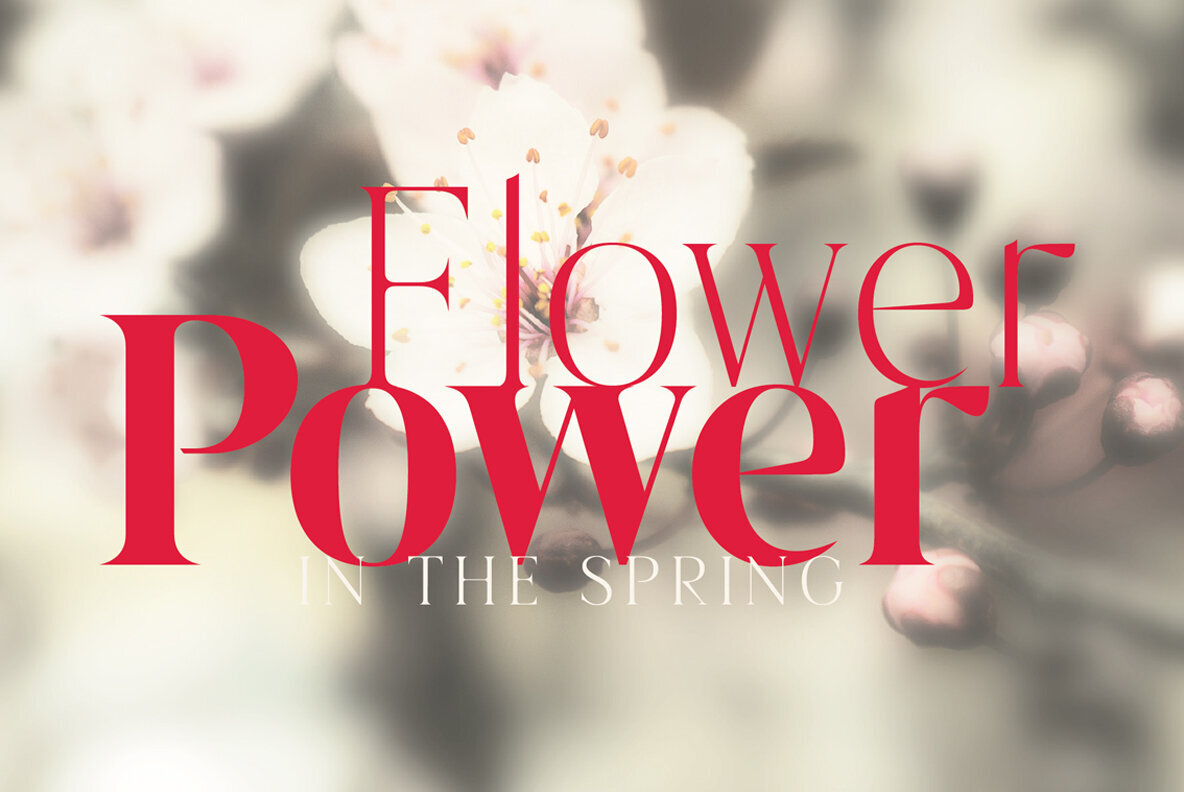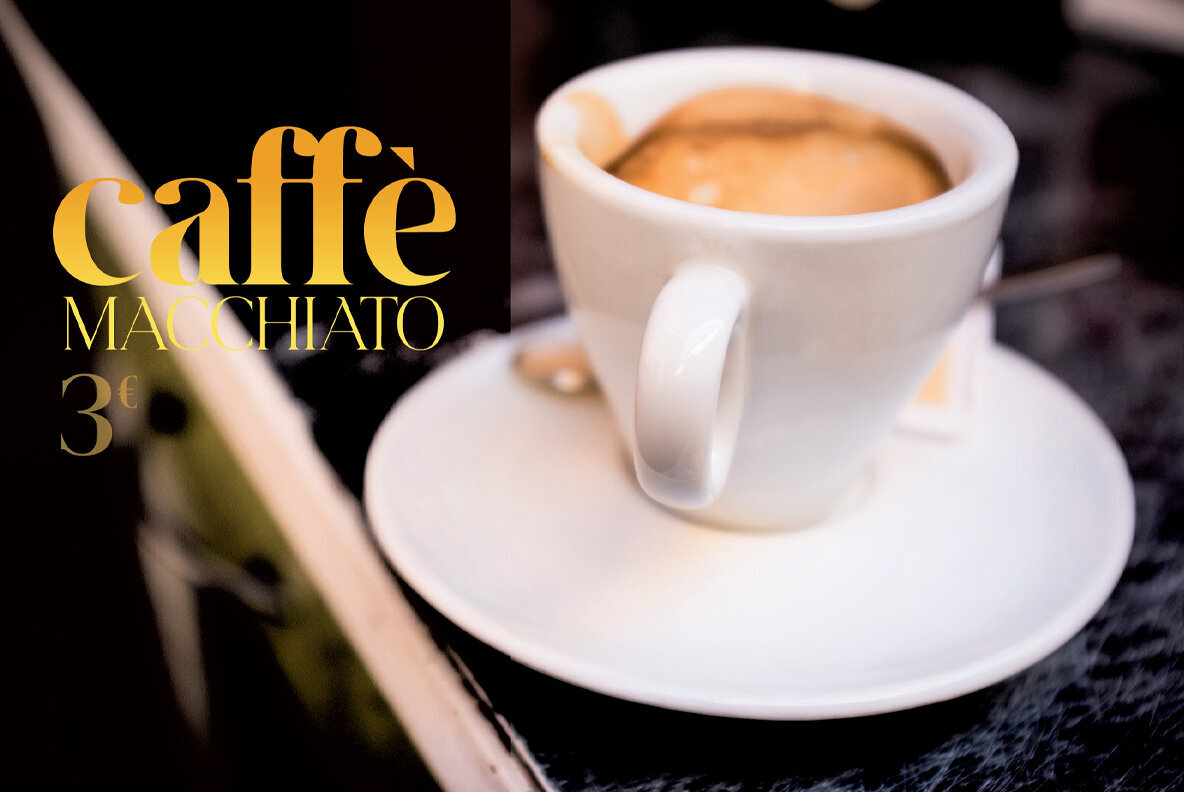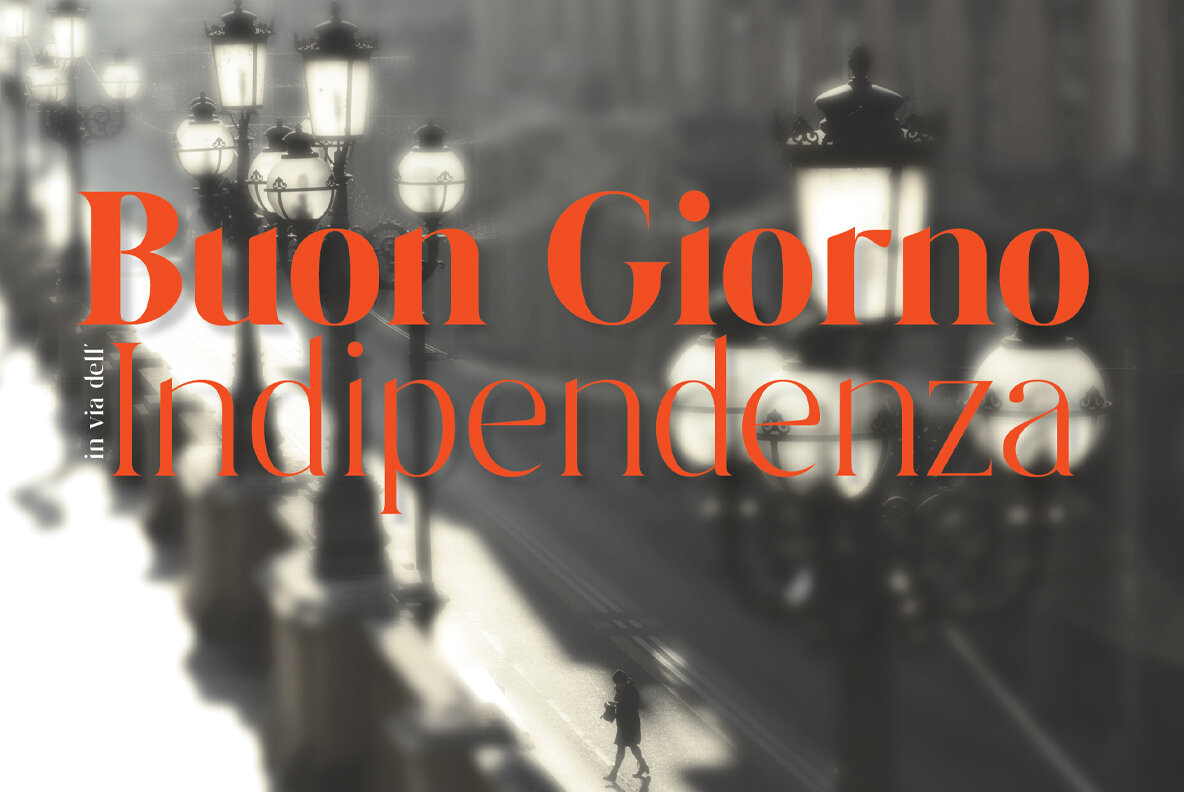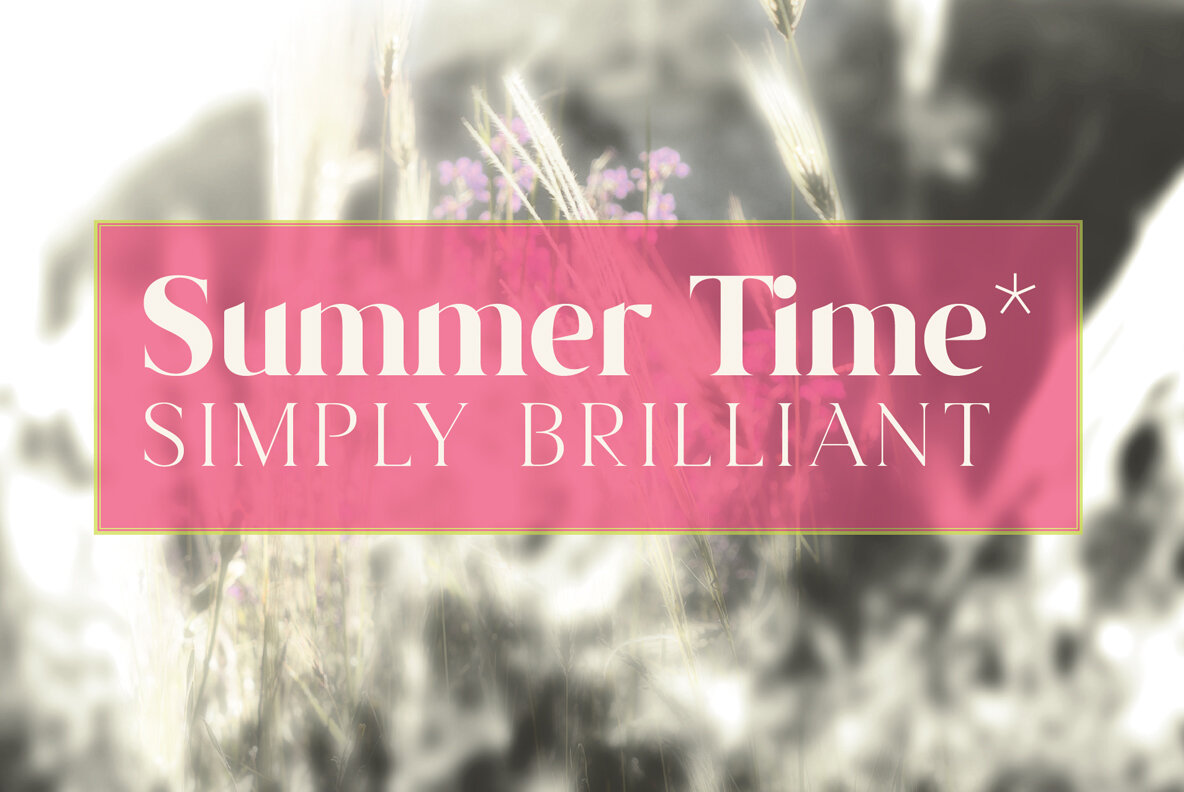
Placidia Font
Placidia is an elegant and stylish font intended for use in a variety of settings and text sizes, and especially in headings and titles. Try Placidia together with a simple, geometric sans font for contrast.